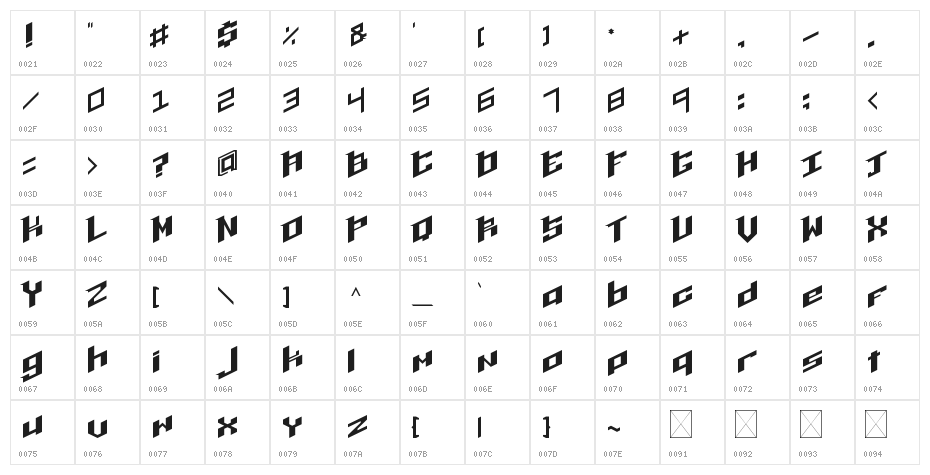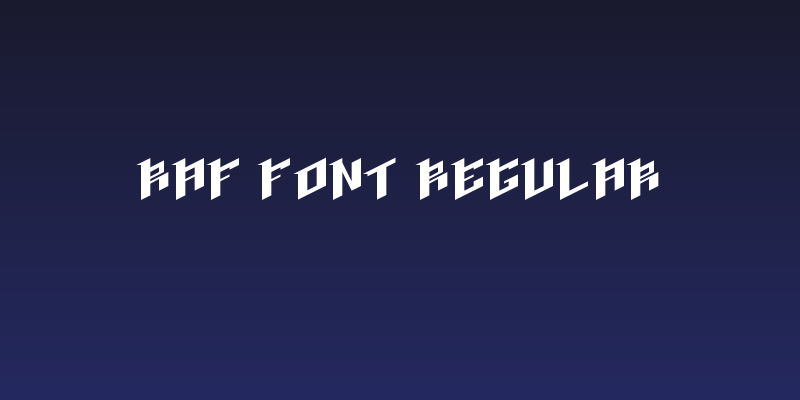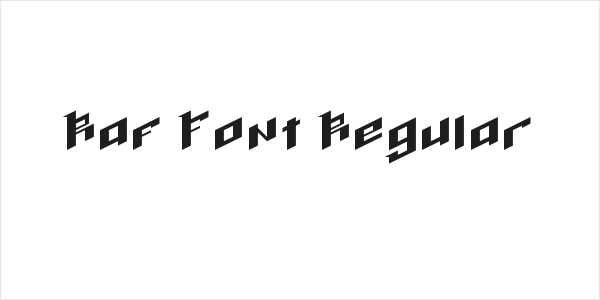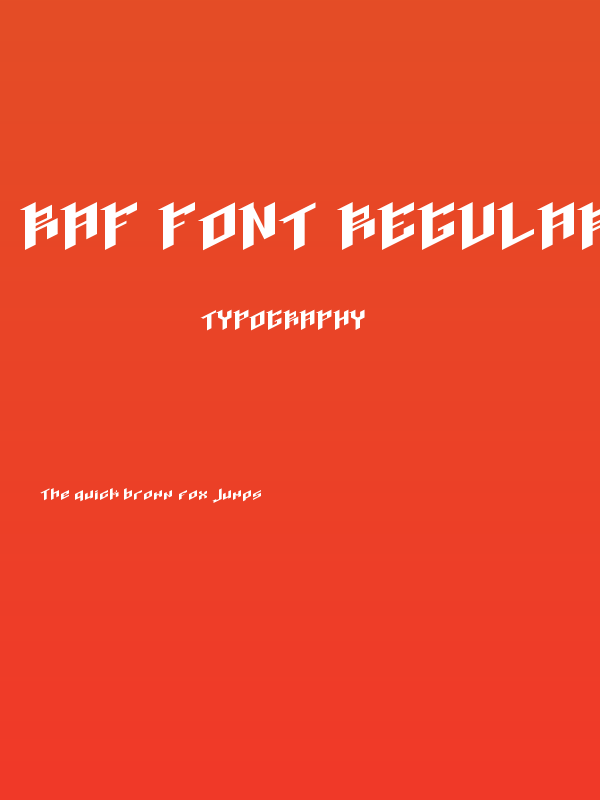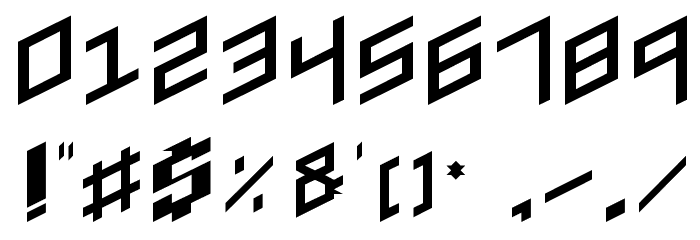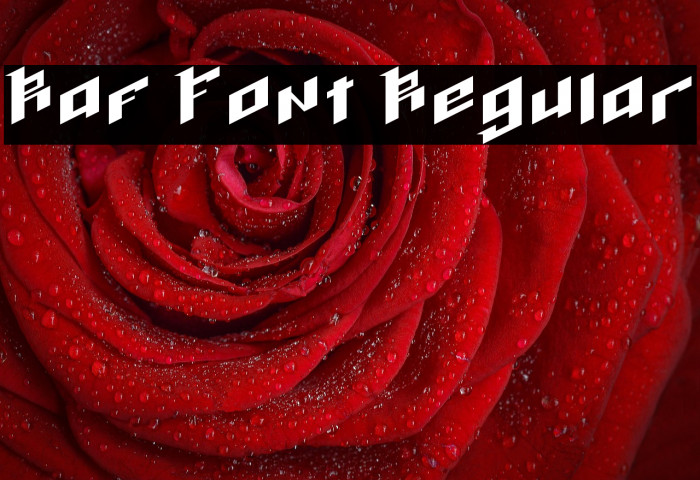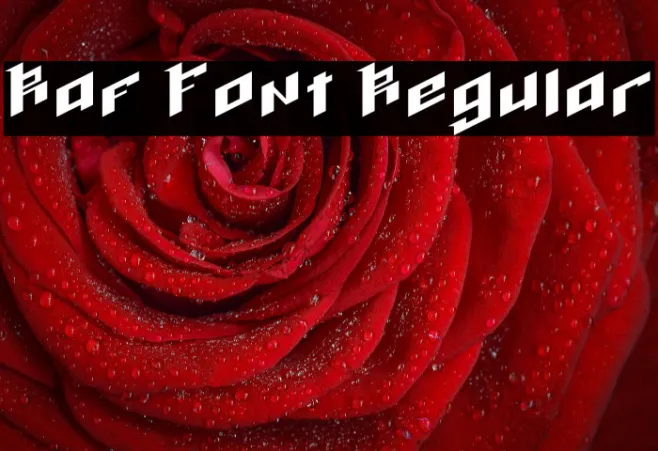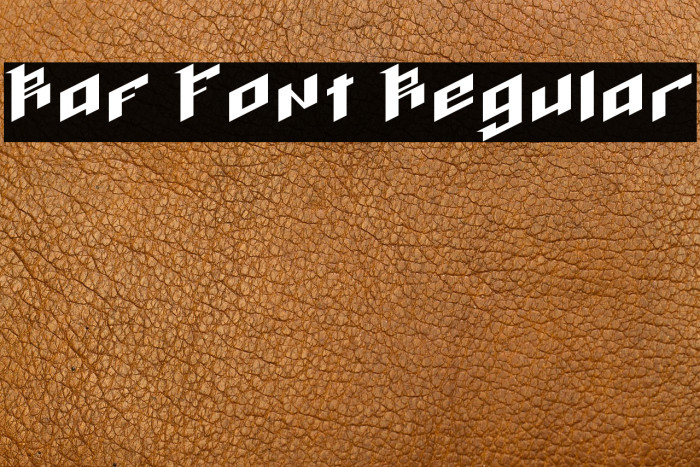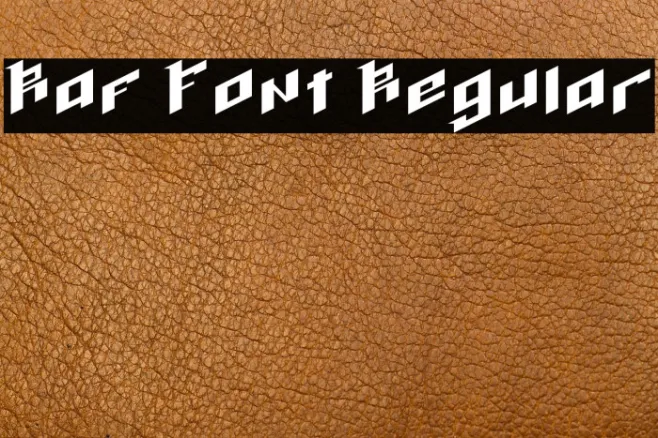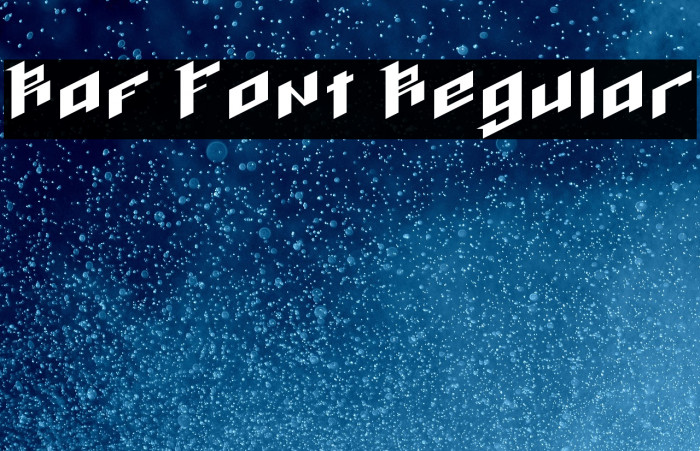
This font features a bold and angular design with a distinctly modern and geometric aesthetic. Each character is crafted with sharp edges and a consistent slant, giving the typeface a dynamic and energetic feel. The uppercase and lowercase letters maintain a uniform style, with the uppercase characters exhibiting a slightly more pronounced angularity. The numerals and special characters follow the same design principles, ensuring a cohesive look across all glyphs. The font's unique style makes it stand out, suitable for projects that require a strong visual impact.
| Proposed Projects | Ideal for branding, posters, video game graphics, and any project needing a bold, modern look. |